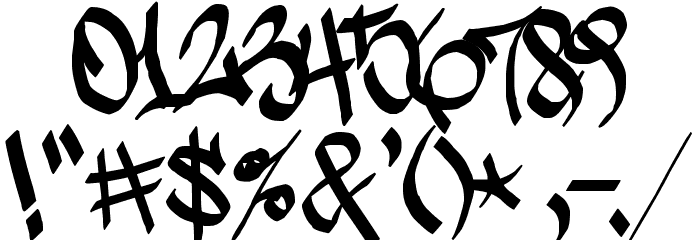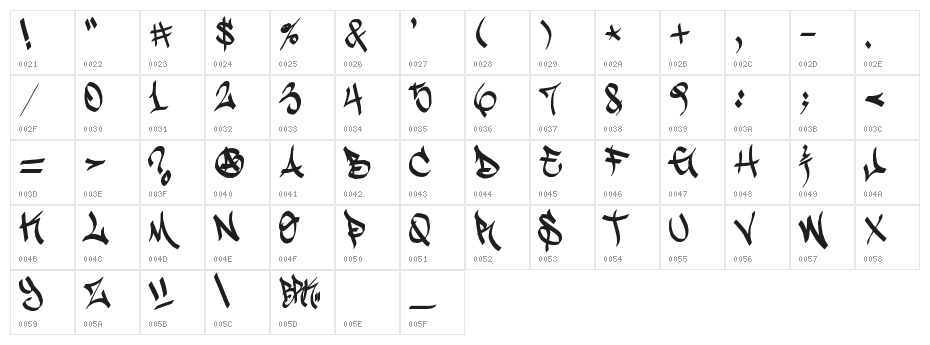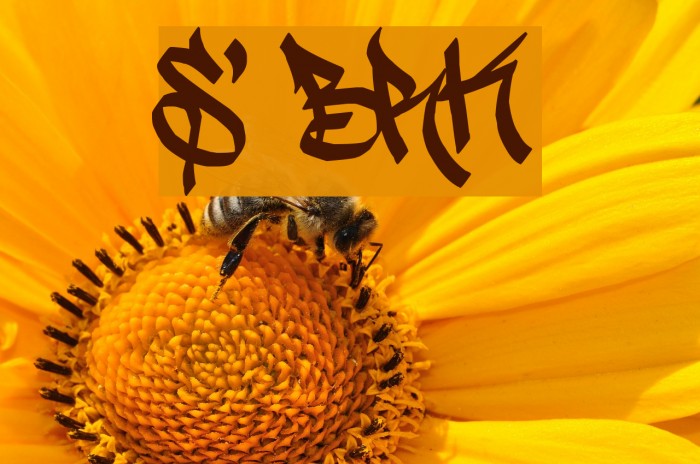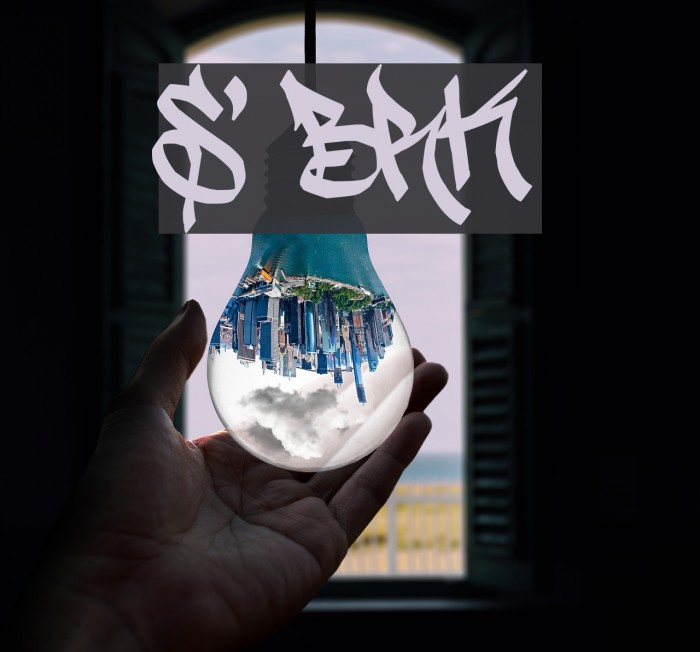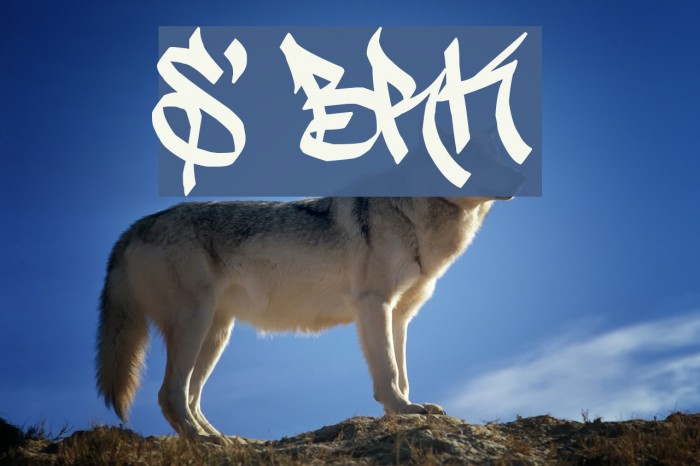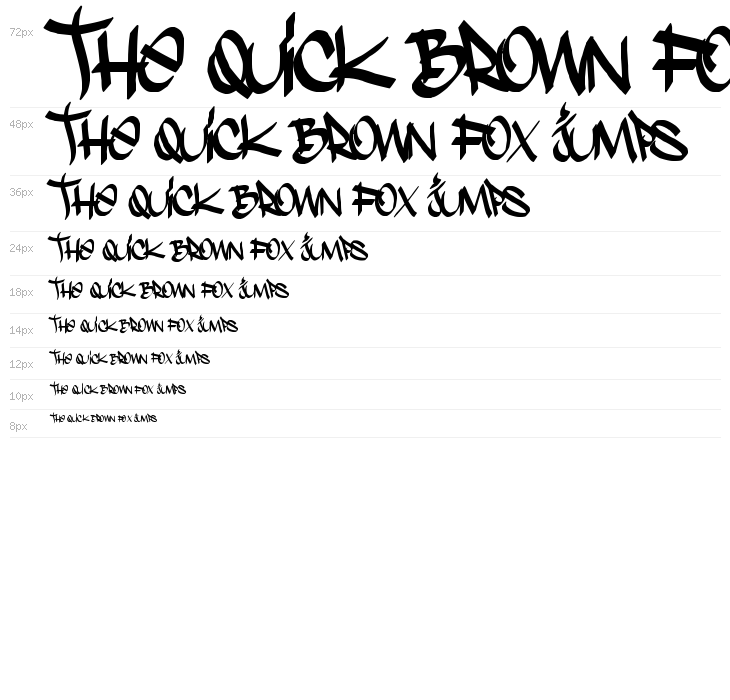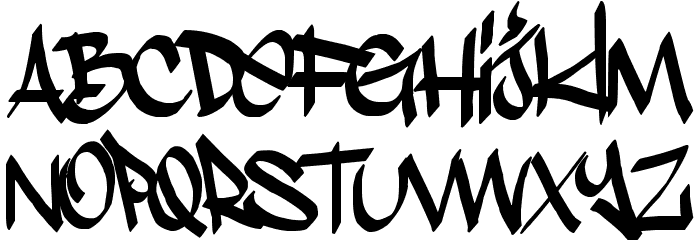
Stylin' BRK Font
Stylin' BRK Description
This font exudes a bold, dynamic energy with its graffiti-inspired style. The characters are highly stylized, featuring sharp angles and exaggerated curves that create a sense of movement and rebellion. The uppercase and lowercase letters maintain a consistent aesthetic, while the numbers and special characters integrate seamlessly into the overall design. This font's unique flair makes it stand out, capturing attention with its artistic and urban vibe.
Overall StyleModern, Urban
Use CaseLogos, Posters, Album Covers
Proposed ProjectsIdeal for street art projects, urban-themed posters, music album covers, and edgy branding.